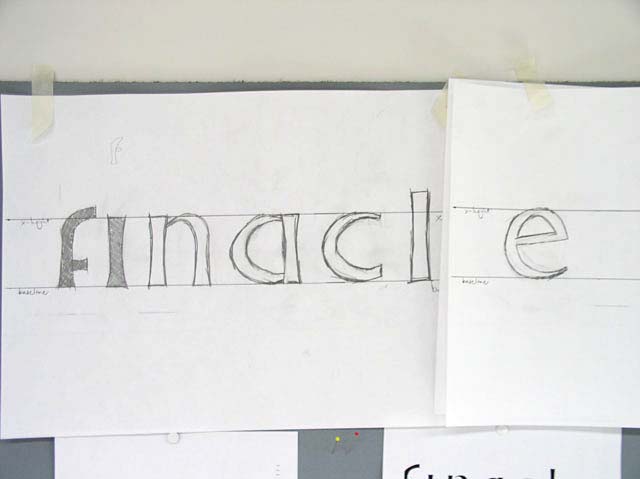
![]() day 1 : day 2 : day 3 : day 4 : day 5 final result thin group and tiny group ![]() Day two, more sketching, more paper, more type, more things about type, more energy, more small (tiny group found out how to make the type more legible in small sizes than before, pfff), more thin (let's go even more thinner!), more music, more ideas, more clear concepts, more coffee & more thai food. We love Tampere. ![]() ![]()